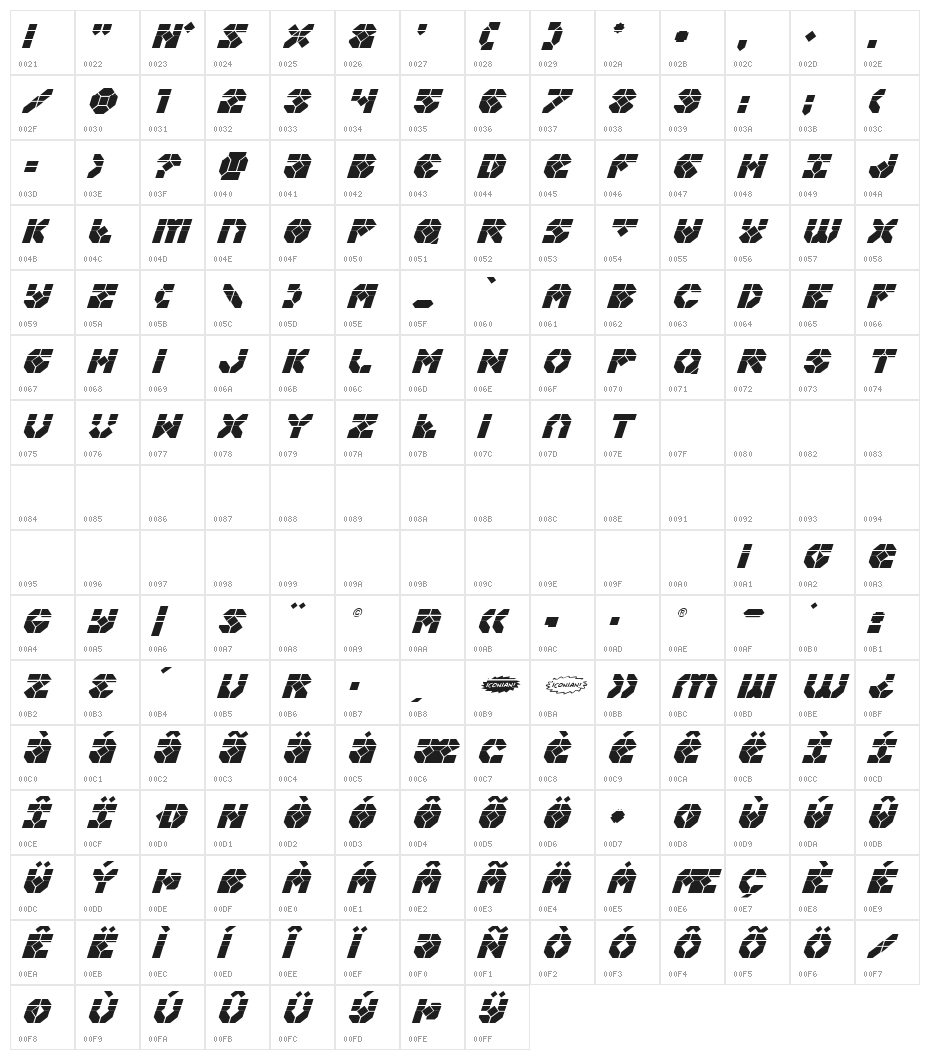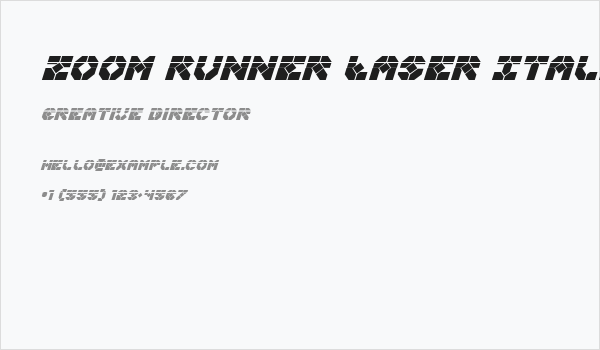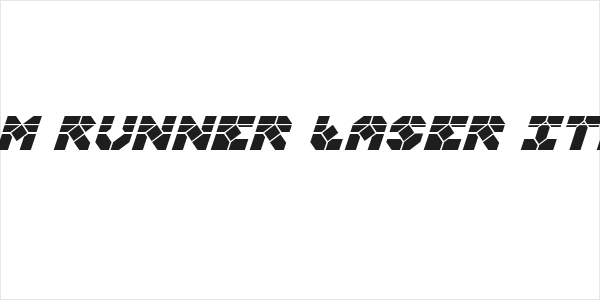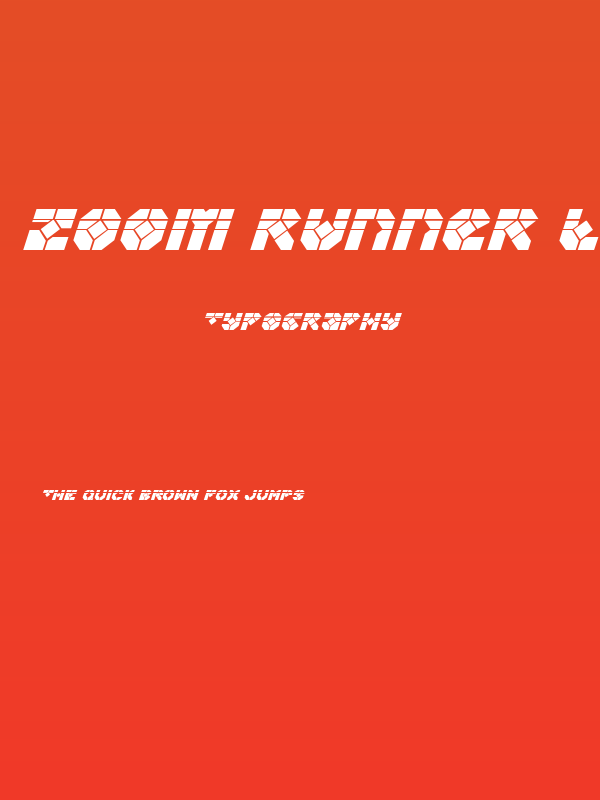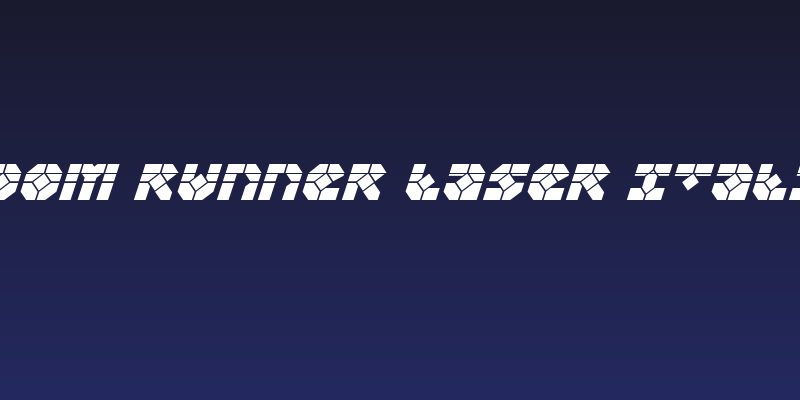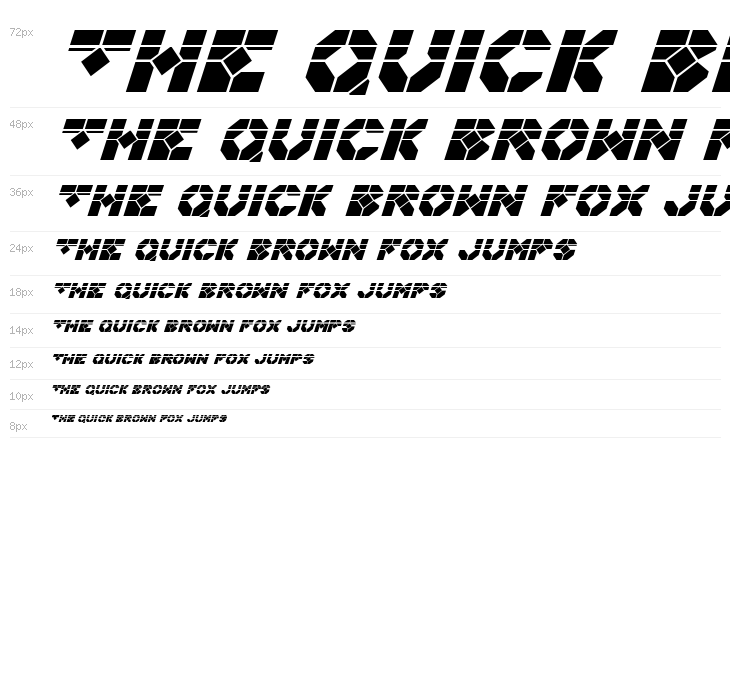
Zoom Runner Laser Italic Font
Zoom Runner Laser Italic Description
This font features a futuristic and geometric design, characterized by its sharp angles and fragmented style. Each character is composed of distinct segments, creating a dynamic and energetic appearance. The italic slant adds a sense of motion and speed, making it ideal for projects that require a modern and cutting-edge look. The bold weight ensures strong visibility, while the unique structure of the letters provides a striking visual impact. This font is perfect for creative and tech-oriented designs, offering a distinctive and memorable aesthetic.